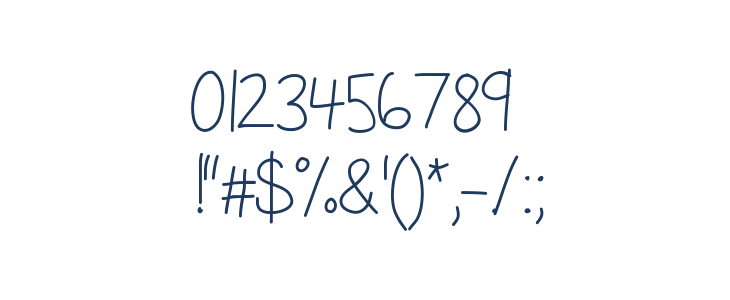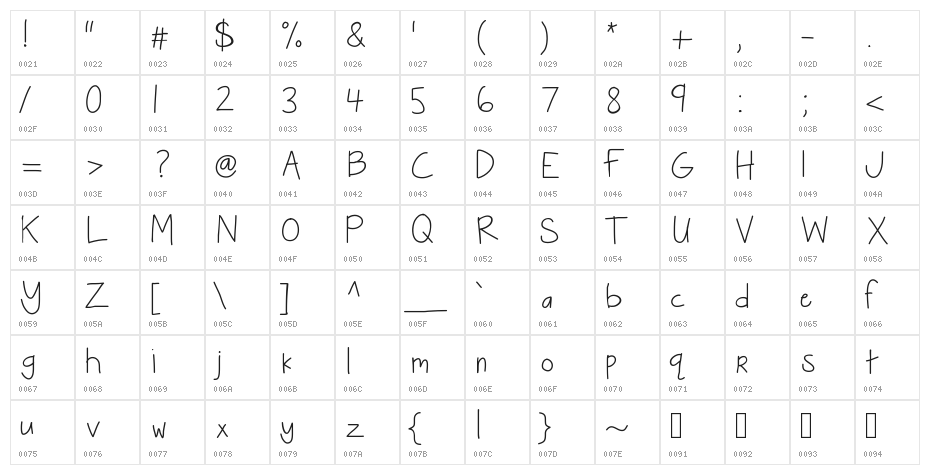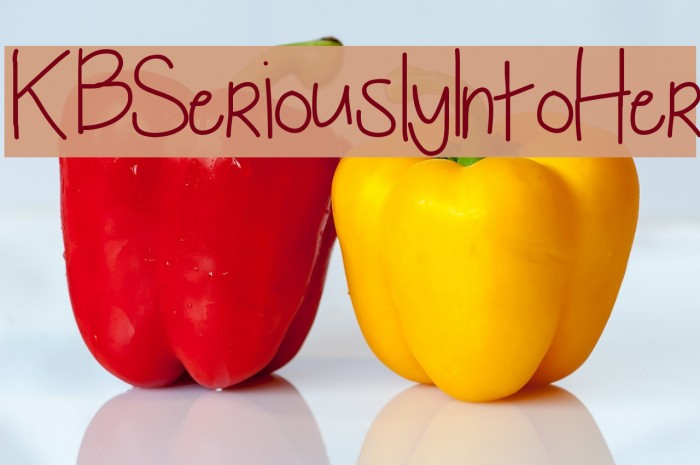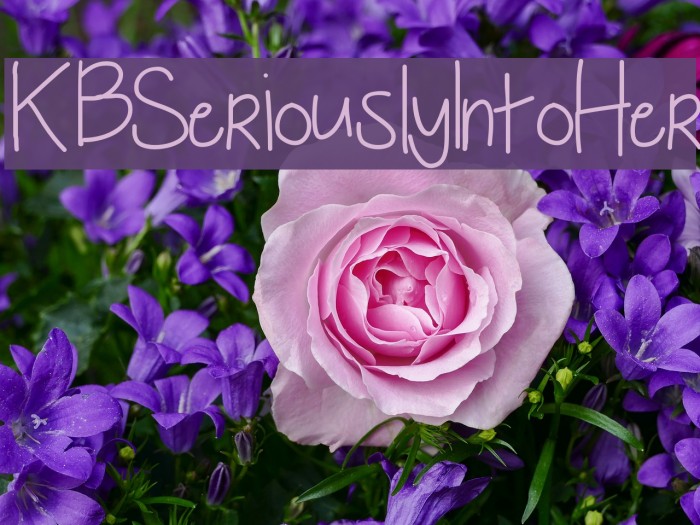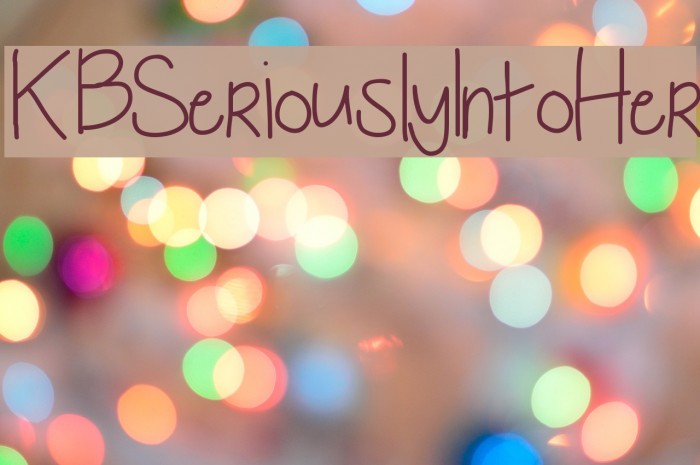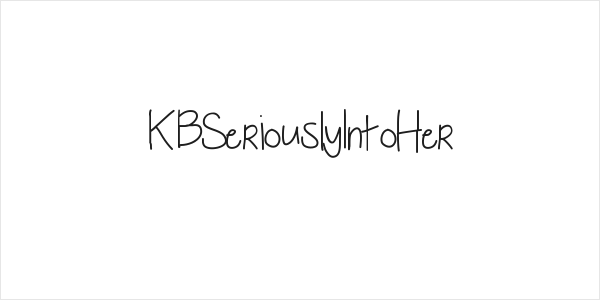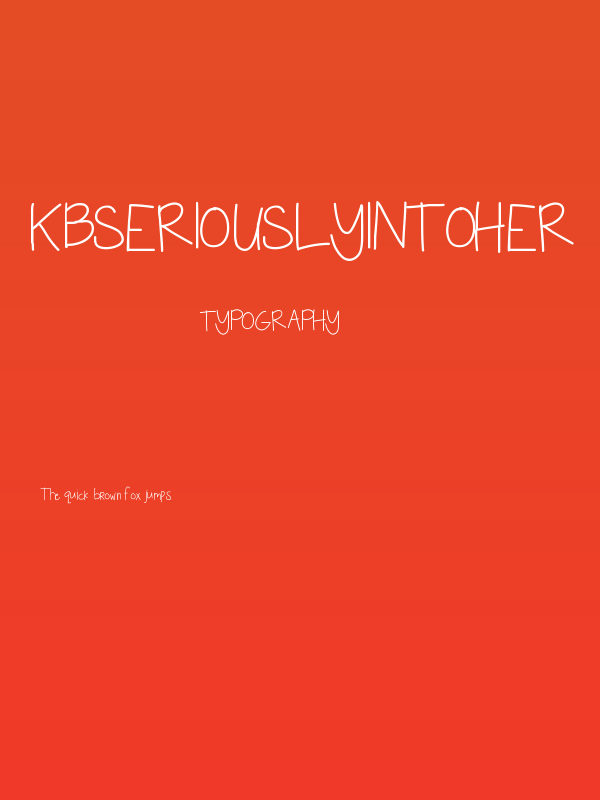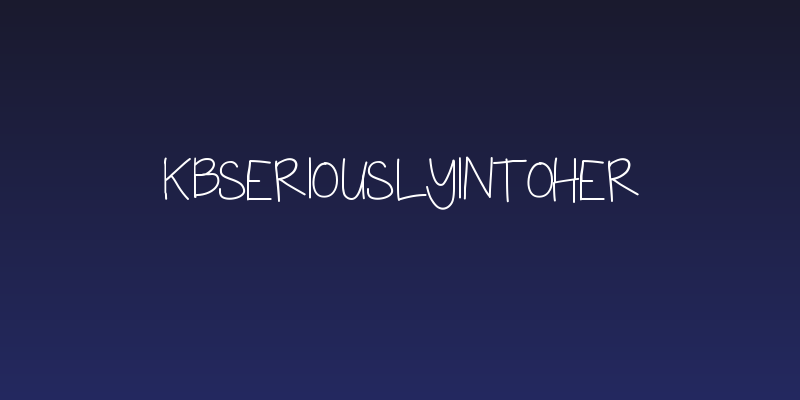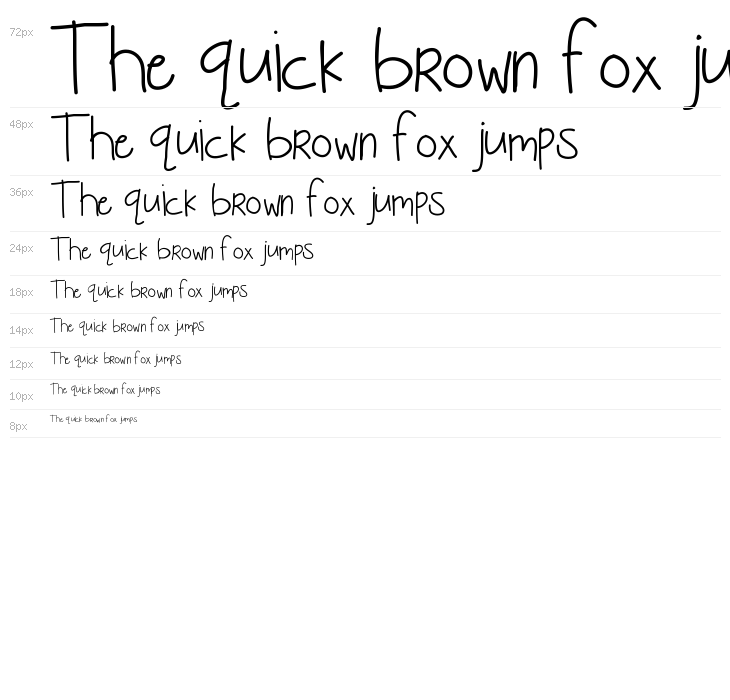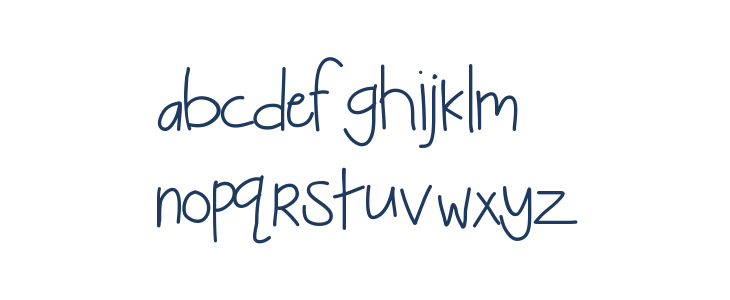
KBSeriouslyIntoHer Font
KBSeriouslyIntoHer Description
This font features a playful, handwritten style with a casual and approachable feel. The characters are slightly irregular, adding a personal touch that mimics natural handwriting. The strokes are consistent in width, giving it a uniform appearance while maintaining a sense of spontaneity. The uppercase and lowercase letters are well-proportioned, and the numerals are clear and easy to read. Special characters are included, enhancing its versatility for various uses. This font is ideal for projects that require a friendly and informal tone.
| Use Case | Headlines, Informal text, Personal projects |
| Proposed Projects | Perfect for greeting cards, personal blogs, children's books, and casual branding. |